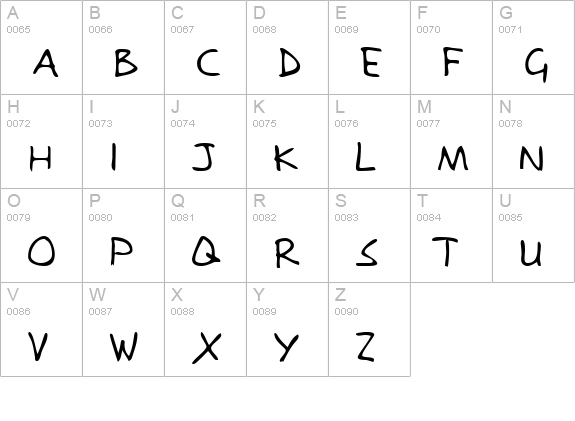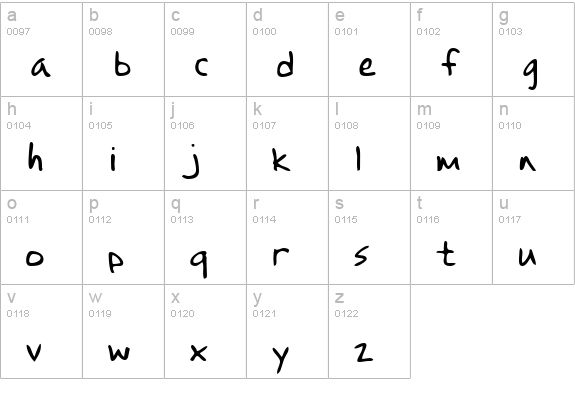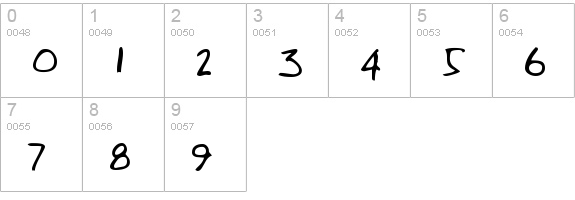
EmilysHand Regular Font Details
EmilysHand Regular is the standard, neutral variant in the EmilysHand typeface family \xE2\x80\x94 well suited to general body text, paragraphs, and standard typographic work.